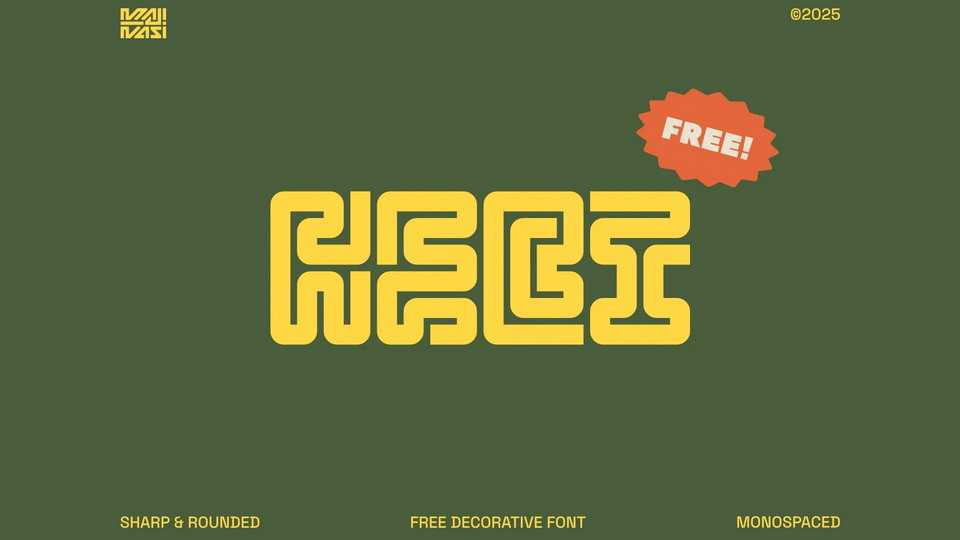
Download Hebi font, a bold and unique decorative typeface inspired by the snake’s body and intricate maze-like shapes. Perfect for posters, logos, album covers, and bold headlines.